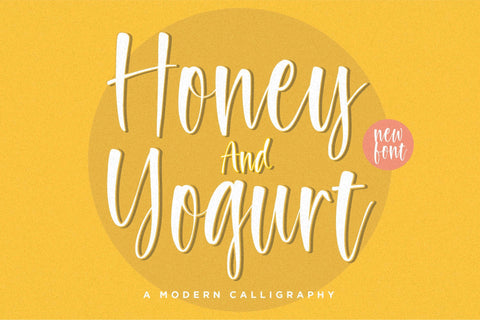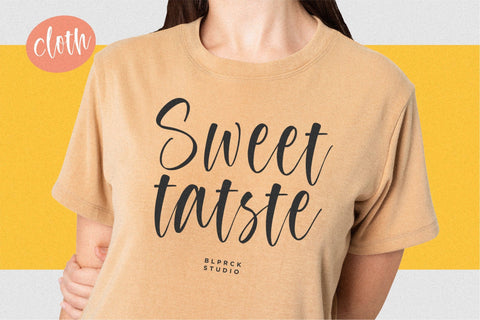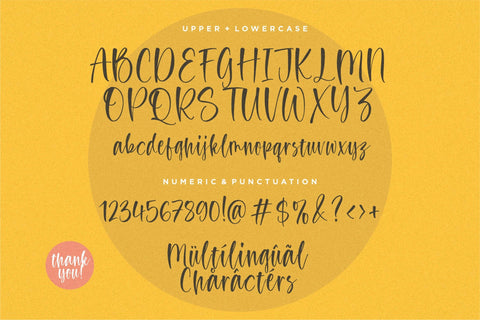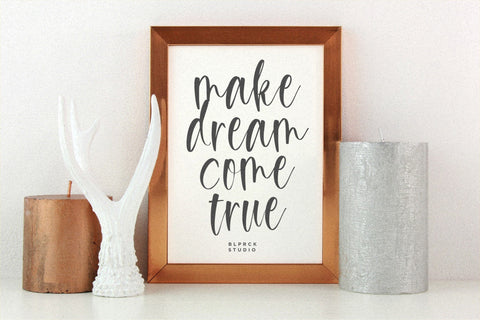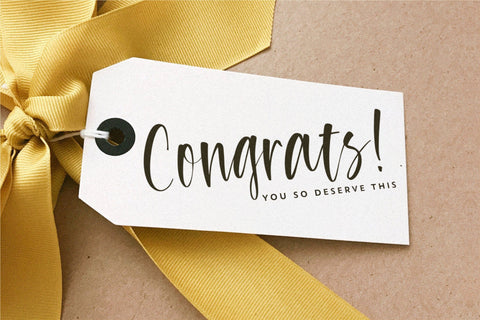
Honey and Yogurt Font
Honey and Yogurt is a Modern Calligraphy Font.
Whether you’re using it for crafts, digital design, presentations, or making greeting cards, this font has the potential to become your favorite go-to font, no matter the occasion!